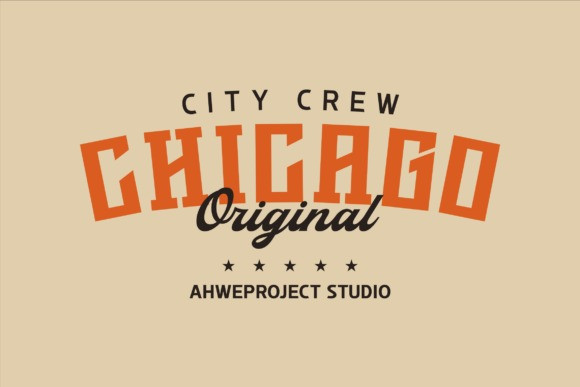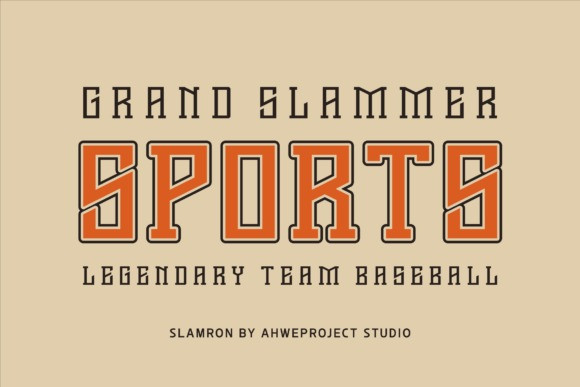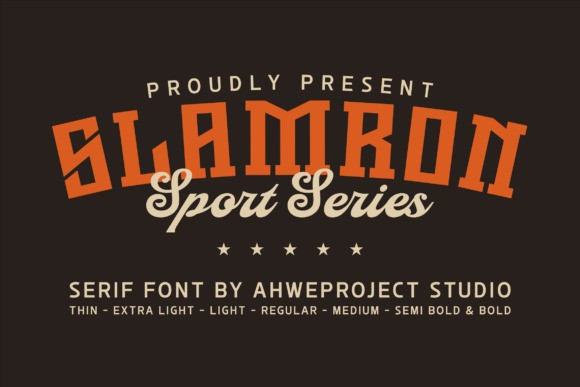
Slamron Font
Slamron Font is a bold and powerful serif font inspired by the classic spirit of sports typography. This font captures the timeless look often seen in stadium graphics, varsity lettering, and athletic branding, making it perfect for projects that need a competitive and dynamic feel.
Beyond sports design, Slamron also fits perfectly into vintage, retro, collegiate, and bold branding projects. Its classic yet modern style makes it suitable for packaging, posters, editorial layouts, and bold marketing visuals that demand a confident typographic voice.